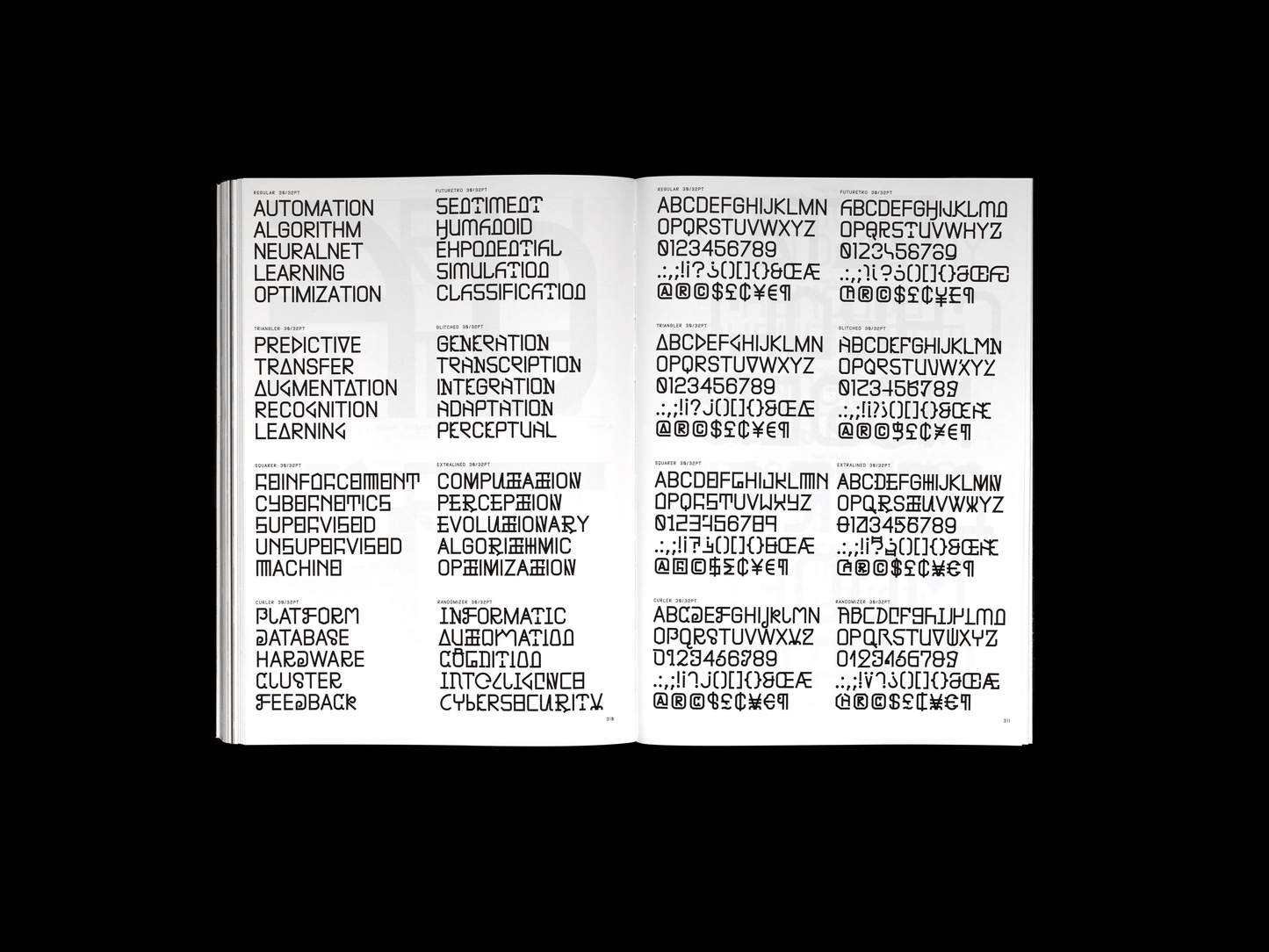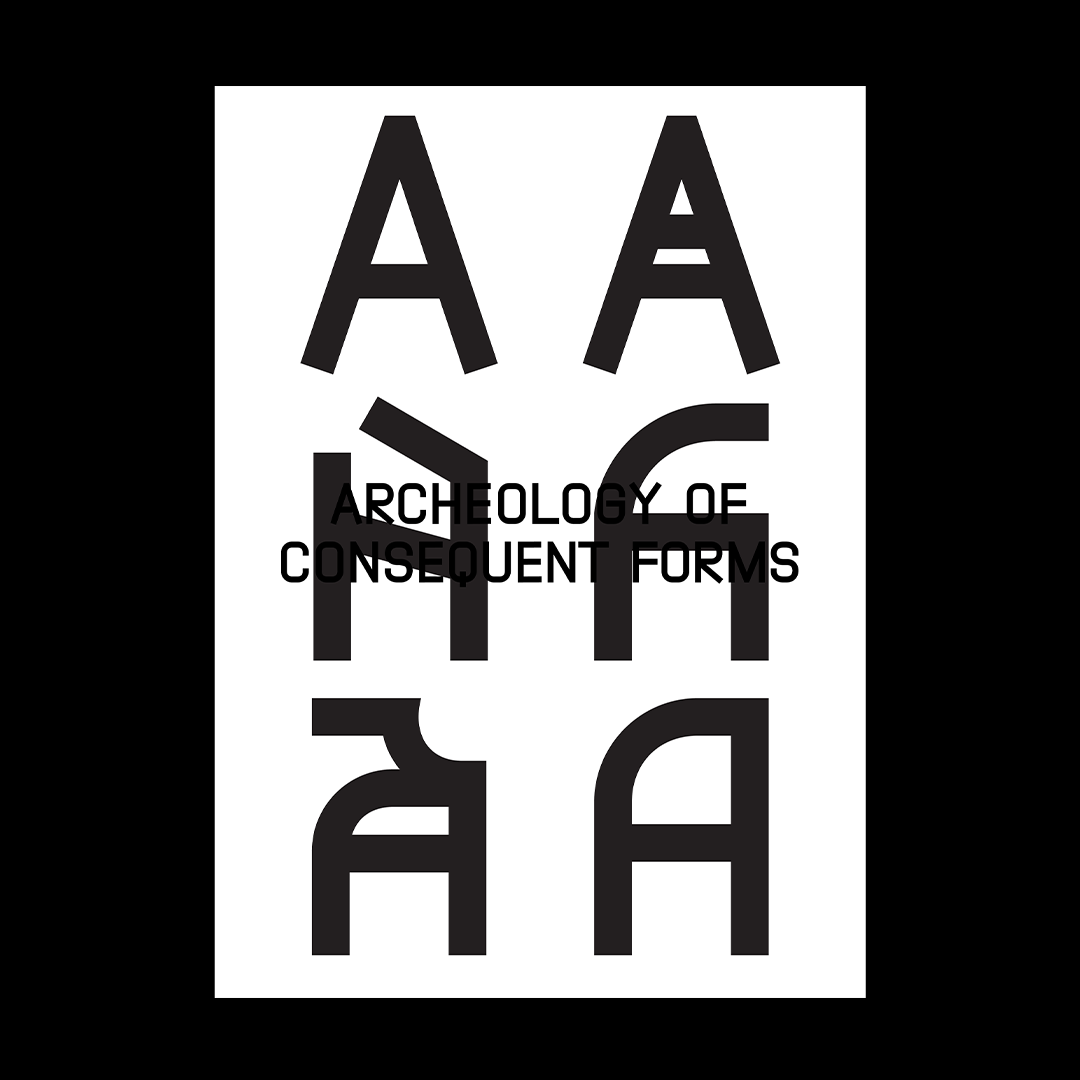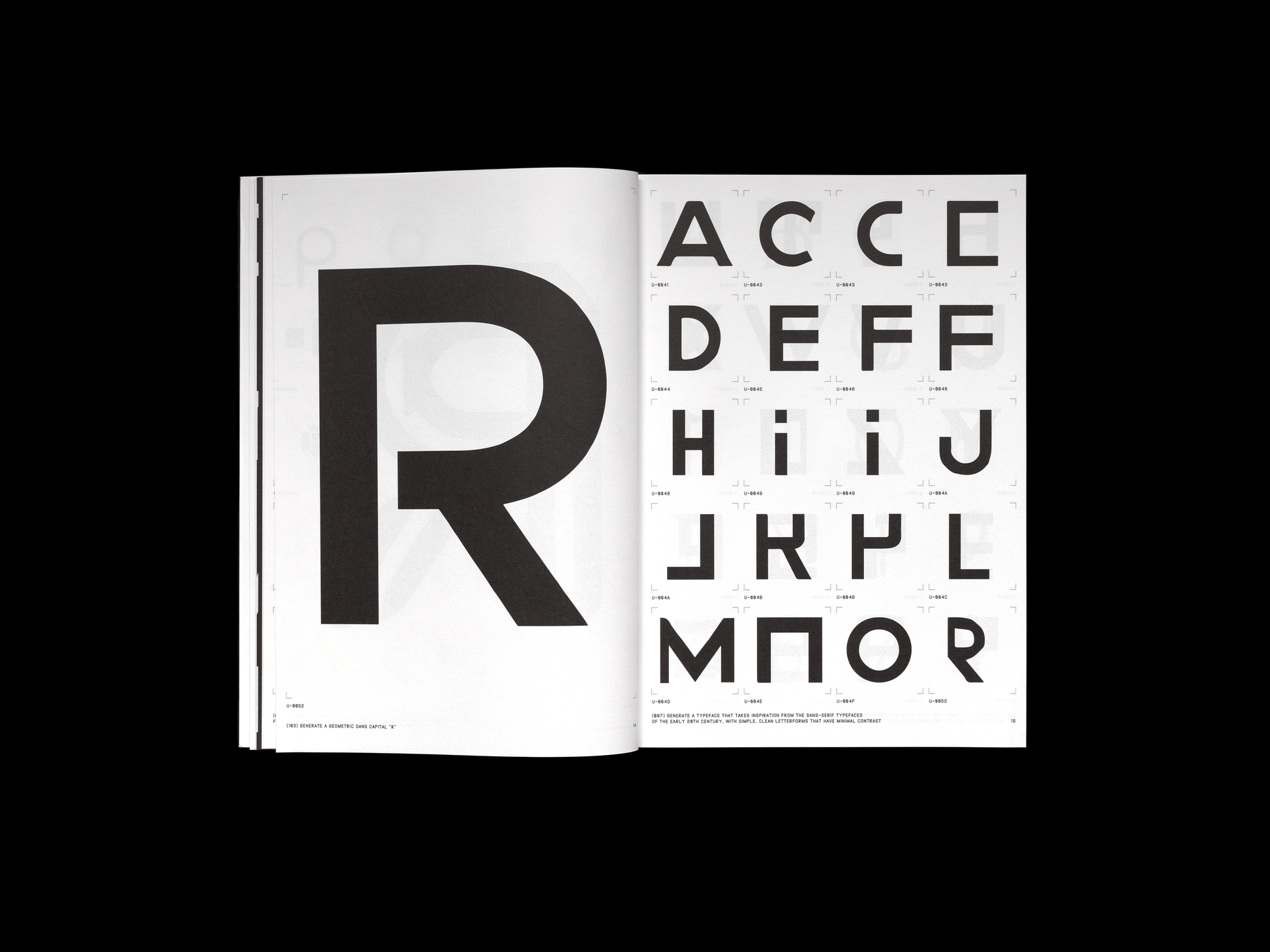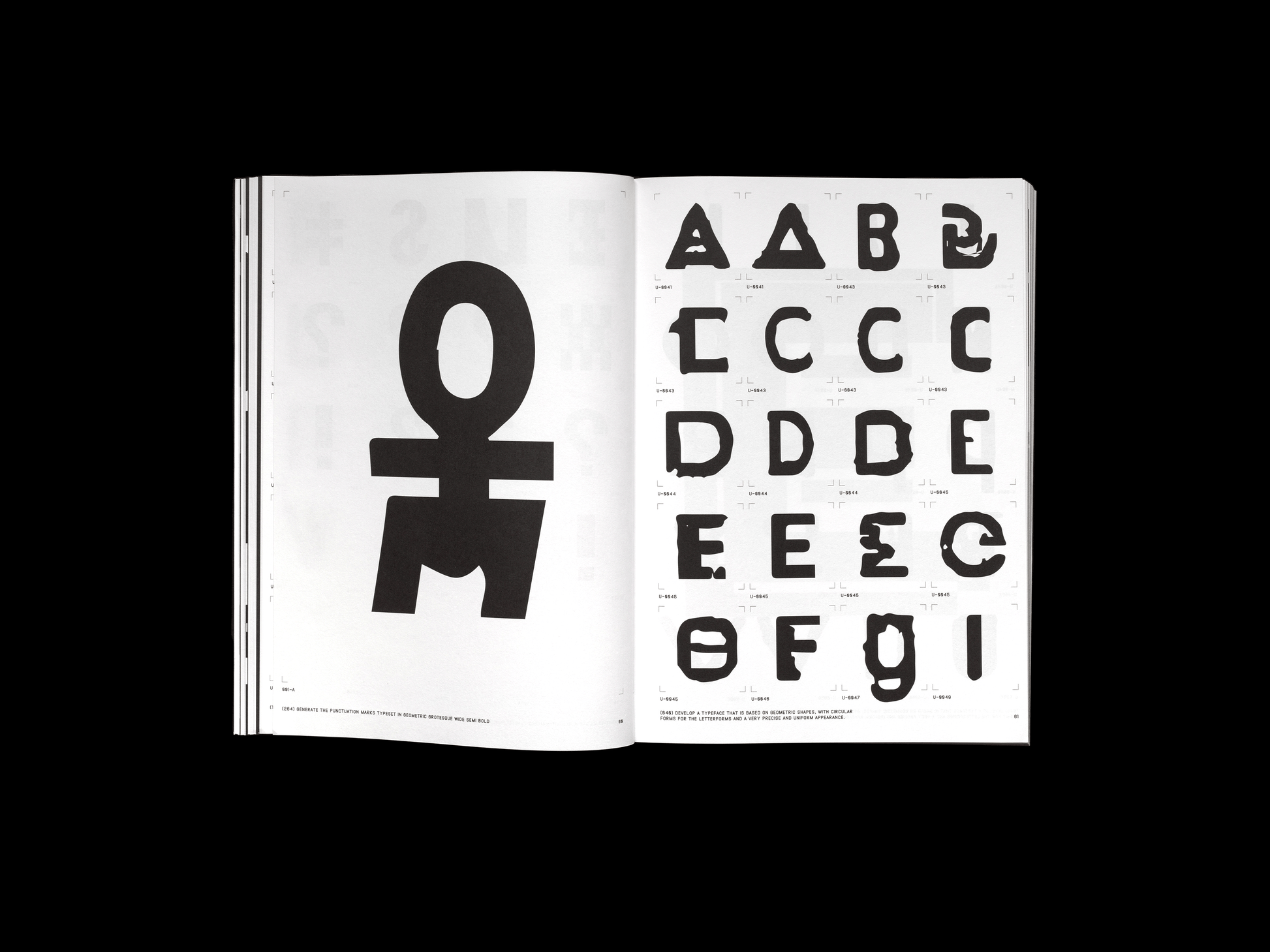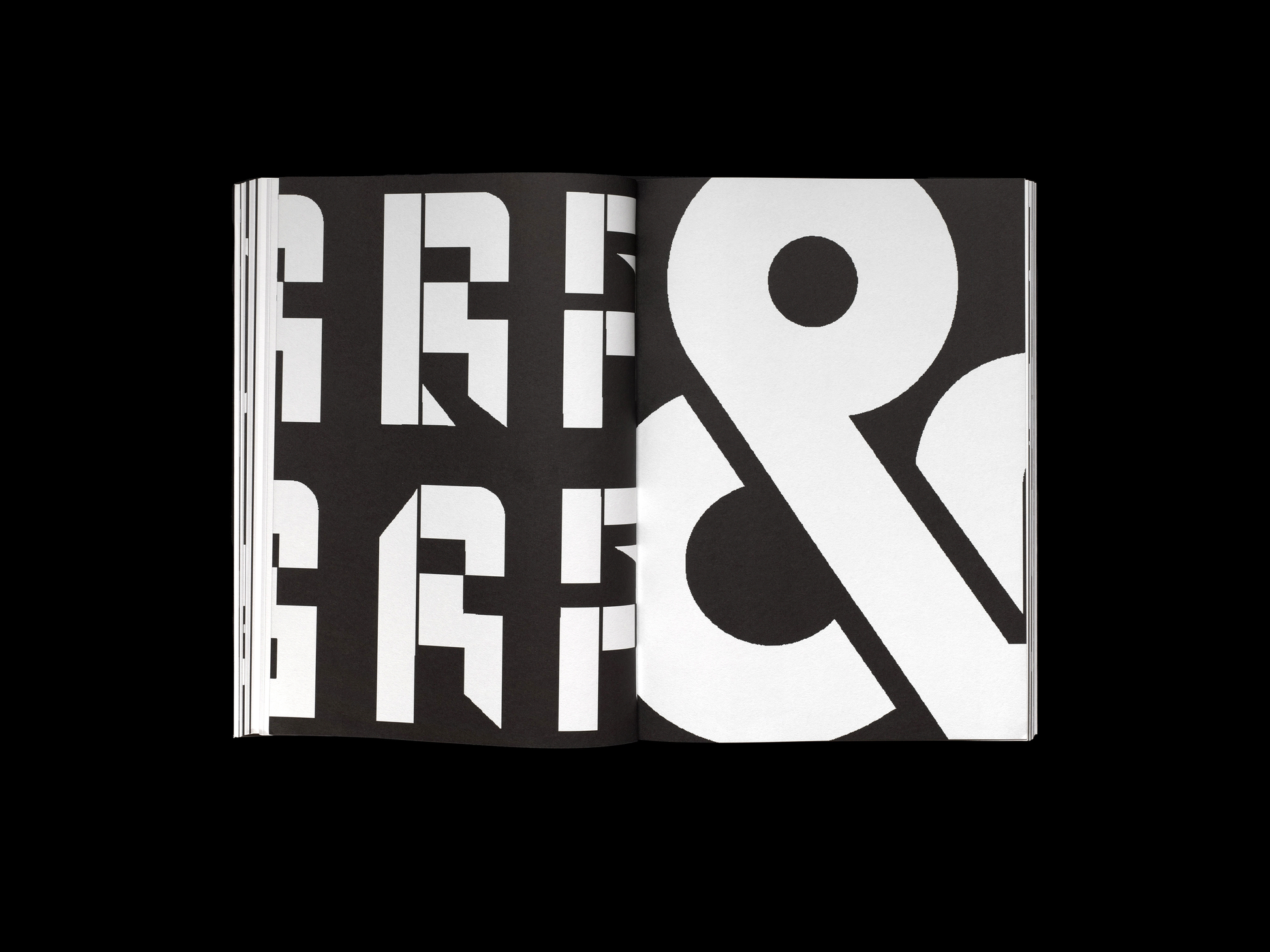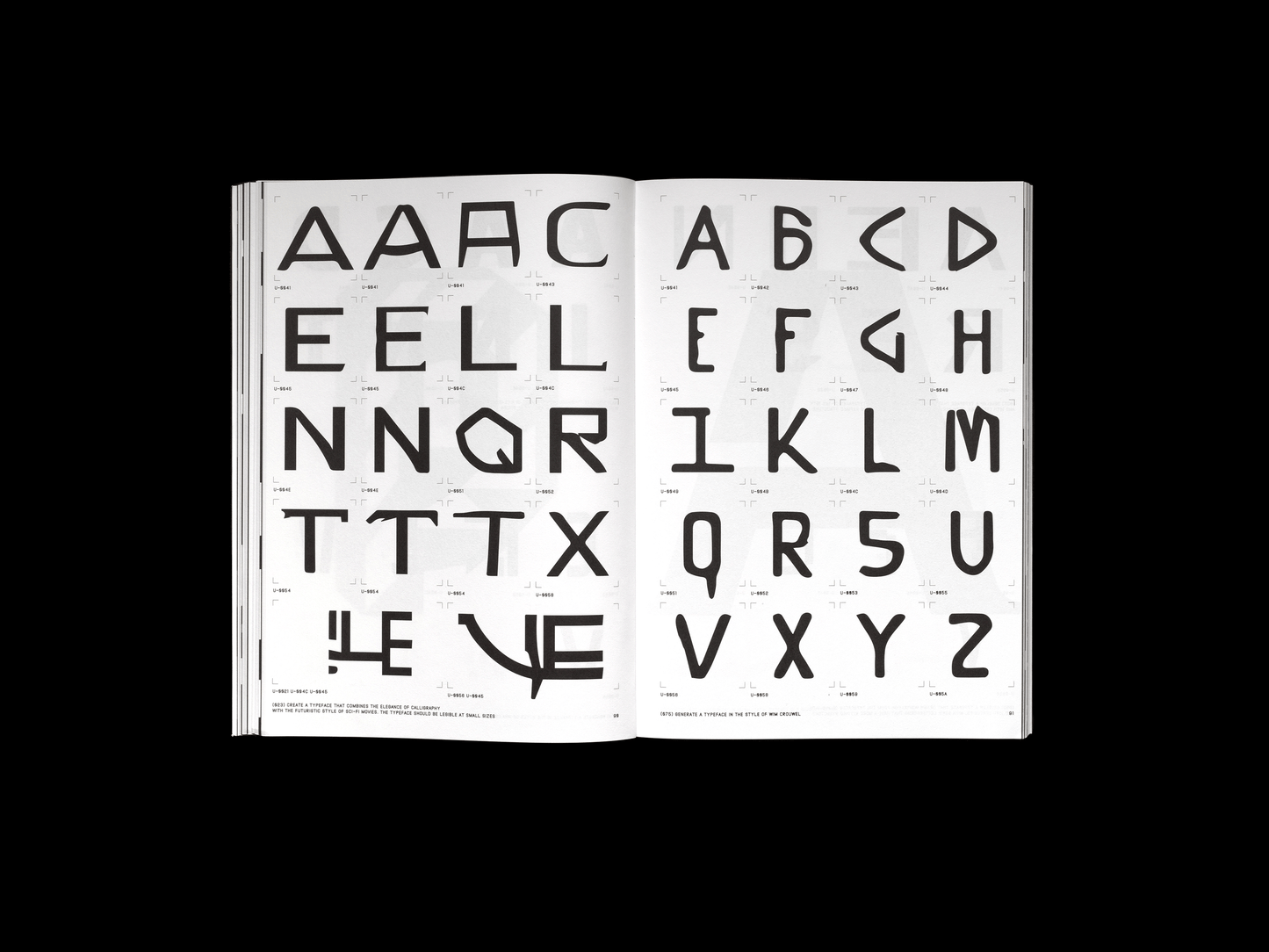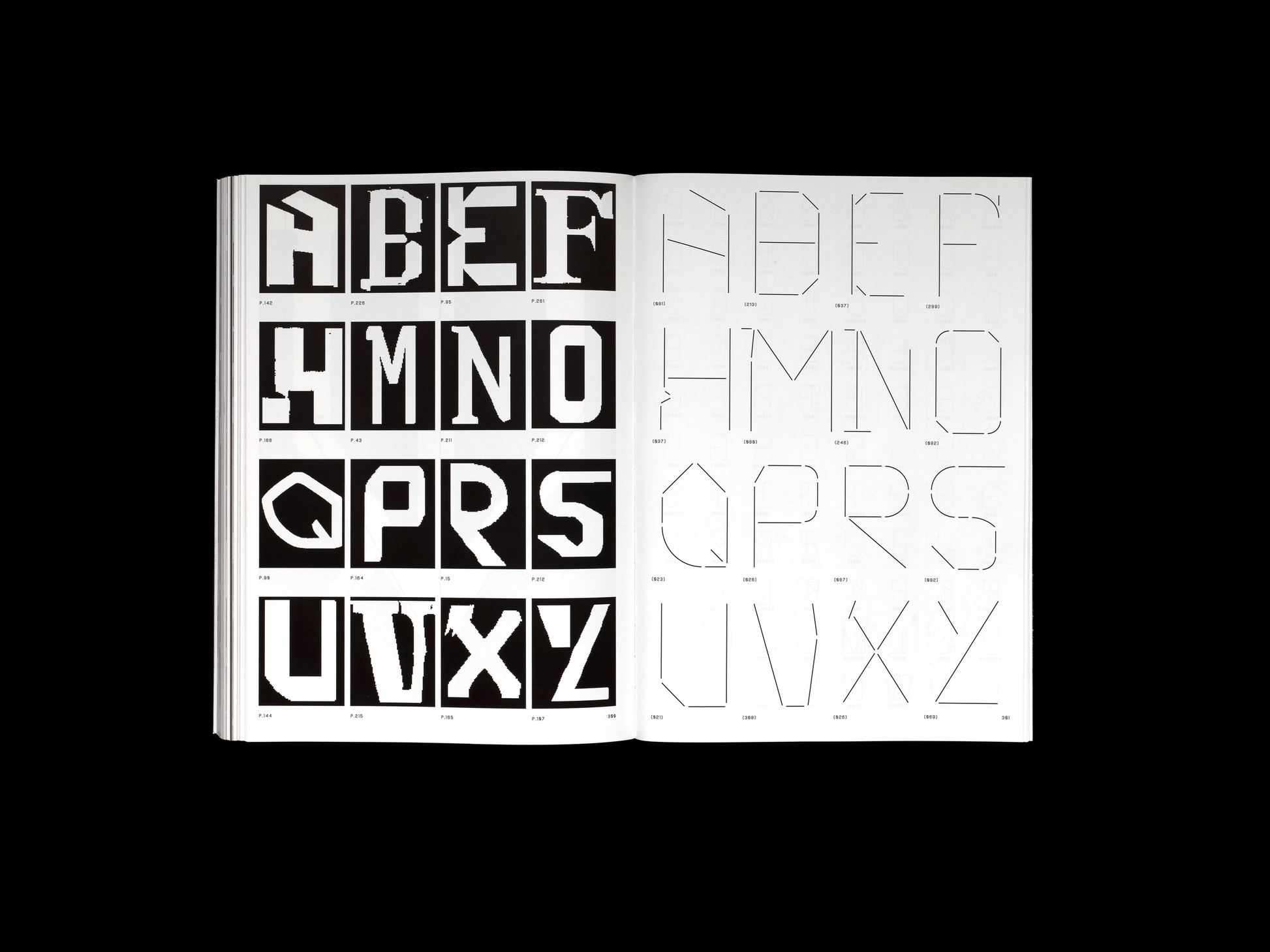
Archeology of Consequent Forms
Orlando Brunner
Published by Maxitype and VC-Edition, 2024
Designed by Orlando Brunner
Archeology of Consequent Forms explores the use of neural-network-based artificial intelligence in the creative process of a typeface. The project starts with the exploration of these models’ understanding of typeface design and the language used to describe it.
The result is a vast gallery of typefaces and single glyphs representative of the patterns and tendencies recognised by these models in the vast amount of examples in their datasets. These, while sometimes very similar to our understanding of typefaces, often present strange features and shapes which result from ‘noise’ in the data, such as inconsistencies in our classification methods or poor image context/quality.
In a second step, the generated shapes are extracted and elaborated in what could be described as a pseudo- archeological process. The basic forms resulting from this process are then collected and curated into a single typeface.